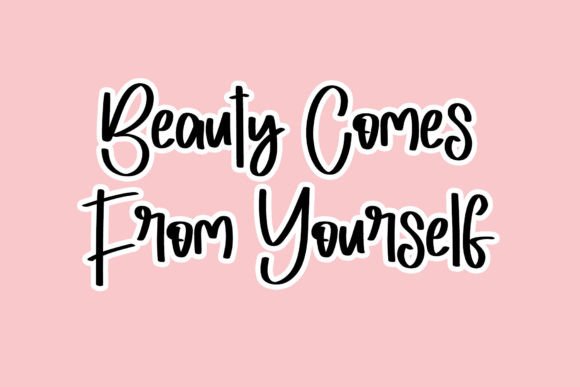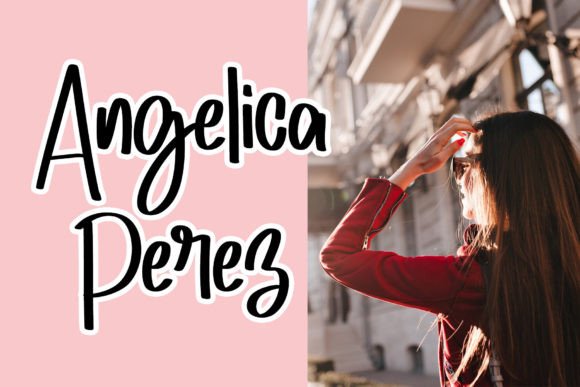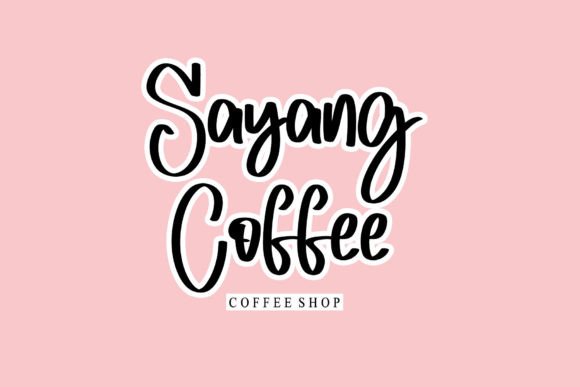
Introduction to Gabrilya Font
Gabrilya is a flowing handwritten font, described by an elegant touch, perfect for your favorite projects.
Why Choose Gabrilya Font?
Gabrilya Font offers exceptional quality and versatility, making it a valuable addition to your design toolkit. Whether you’re creating for personal projects or commercial use, Gabrilya Font delivers professional results.